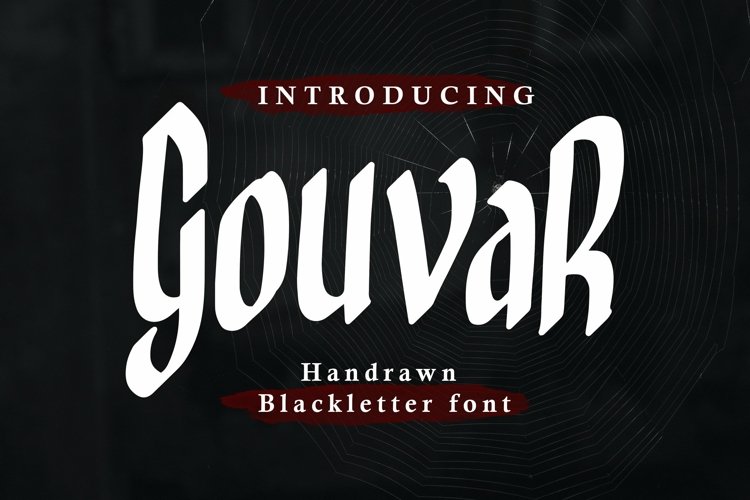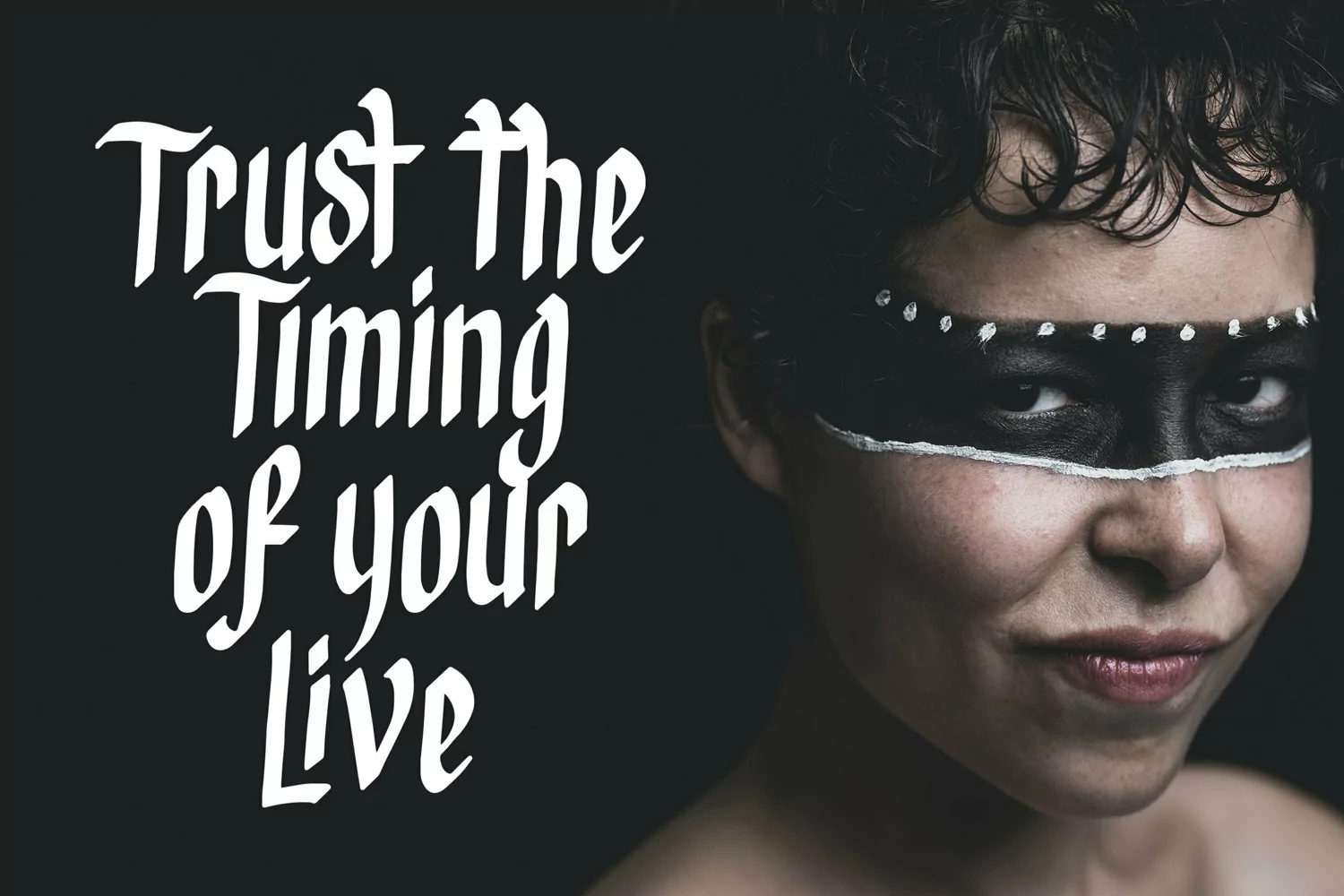
Gouvar - Handdrawn Blackletter Font that contain lowercase, uppercase, symbol, and also support multi language. There’s a lot ligatures in this font. This Font also comes with ligatures, alternates and many more. this font suitable for fashion, branding, catalog and other design what you want.